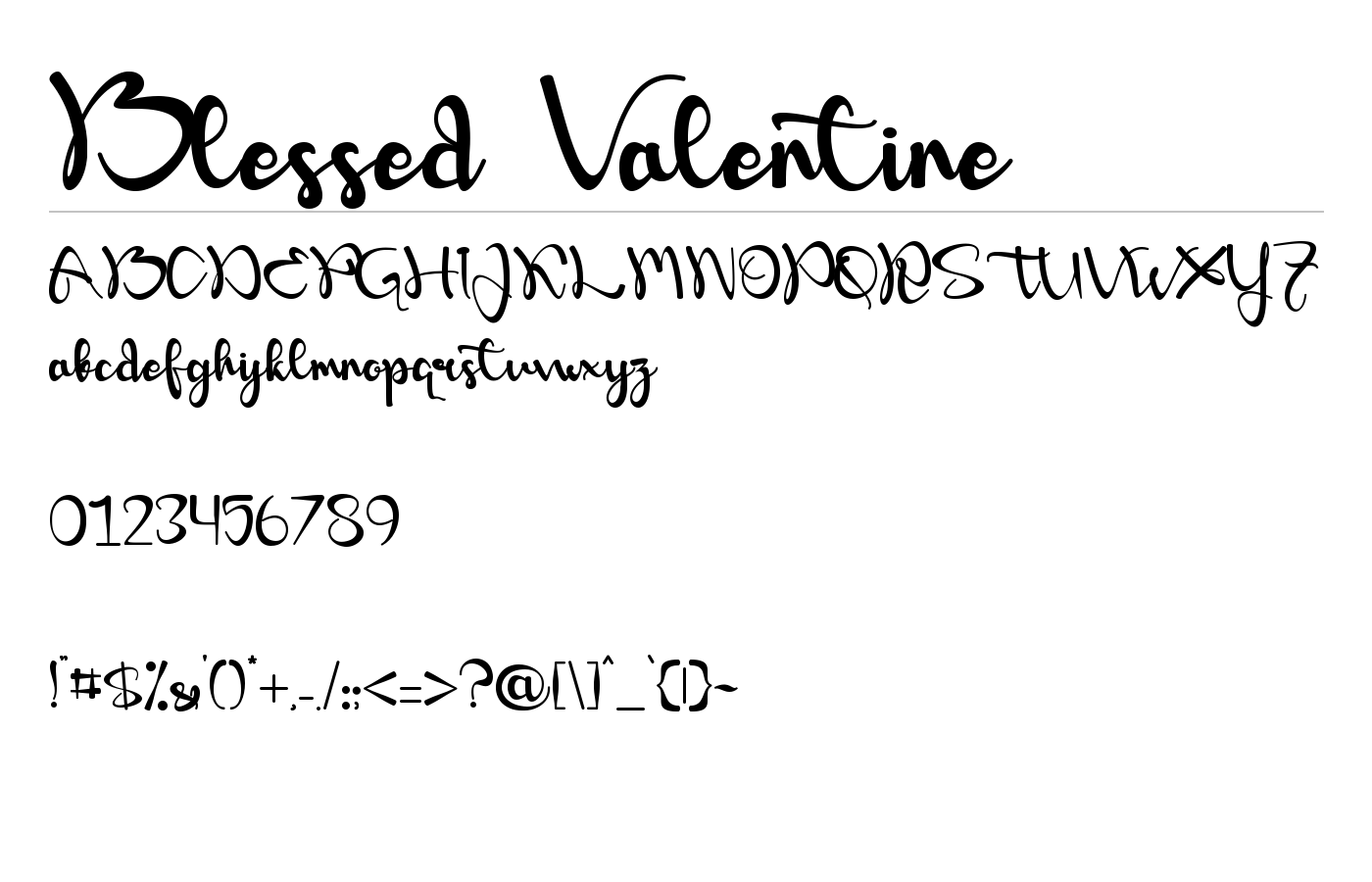
Blessed Valentine is a playful, handwritten script font with a charming, casual feel. It features flowing, rounded letterforms with varied stroke widths and whimsical uppercase characters, making it ideal for creative and personal projects like greeting cards, invitations, and lifestyle branding that seek a warm, friendly touch. This font works best in headlines and decorative designs where its lively personality can shine.
Blessed Valentine Font
| Designer | Arkrist Letter |